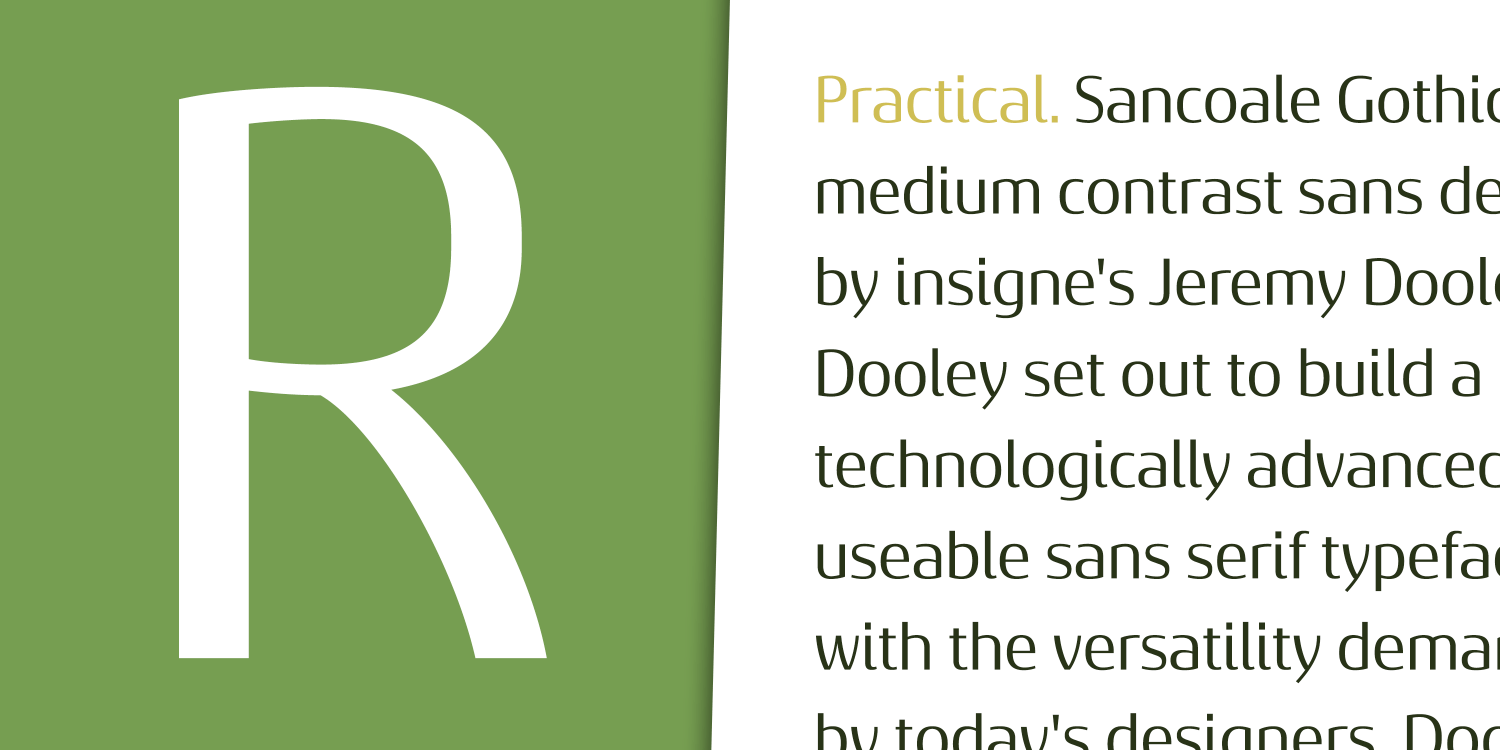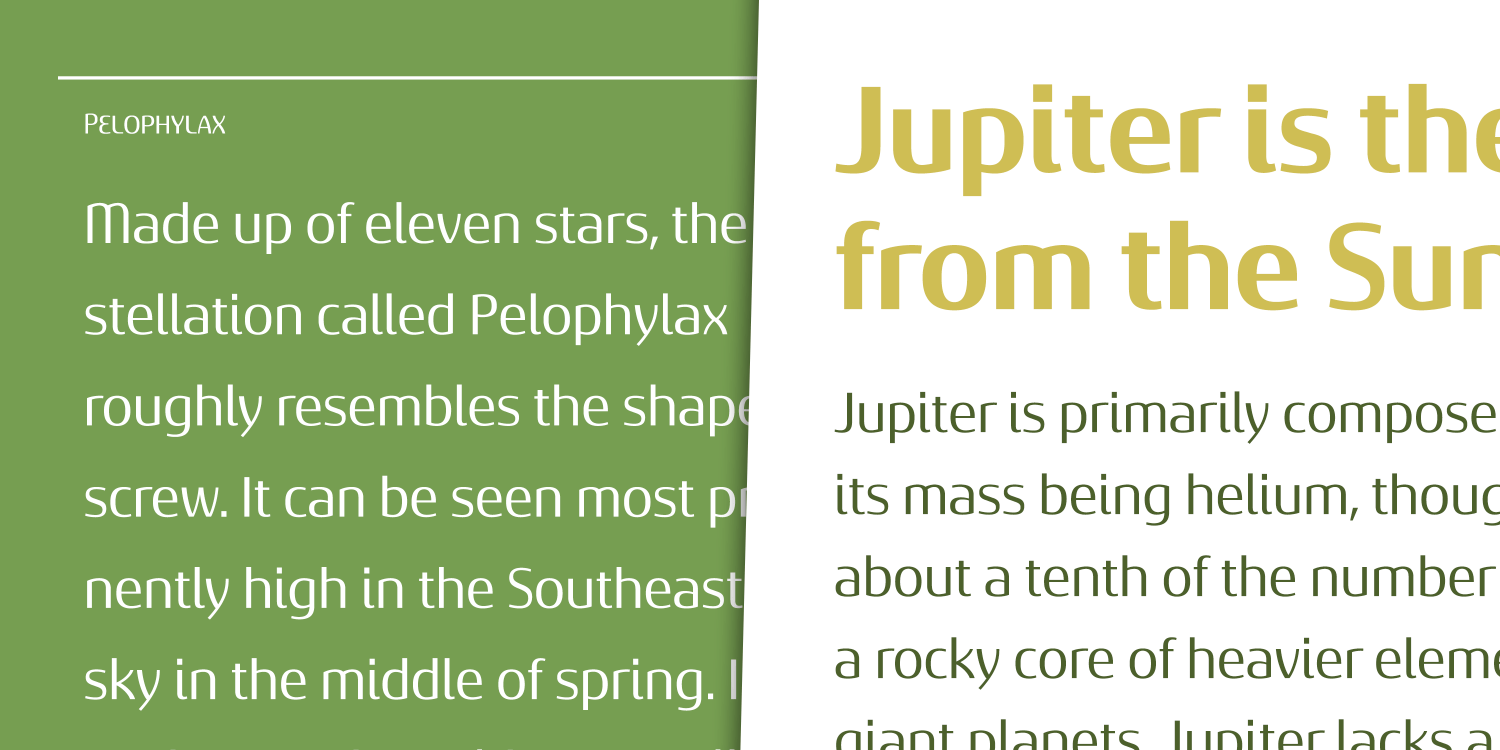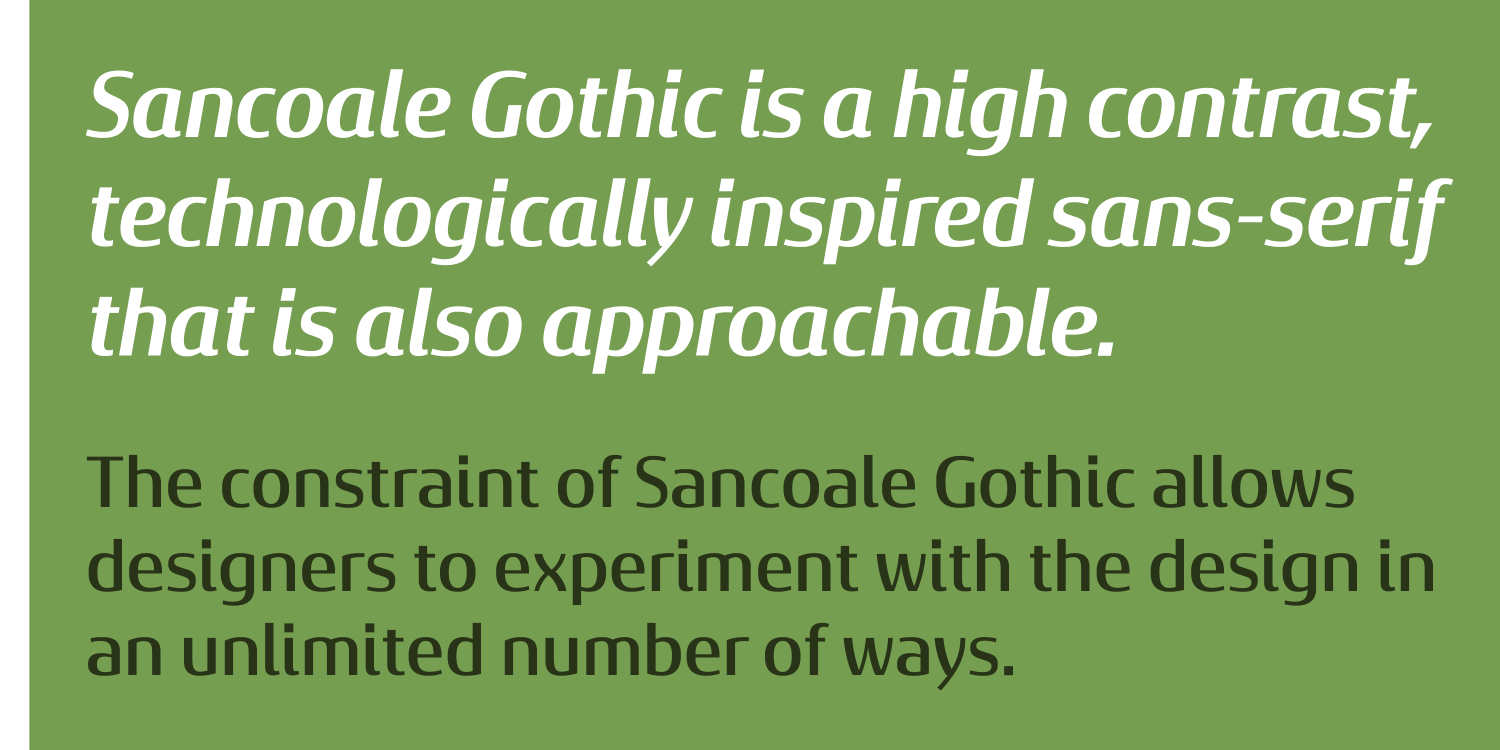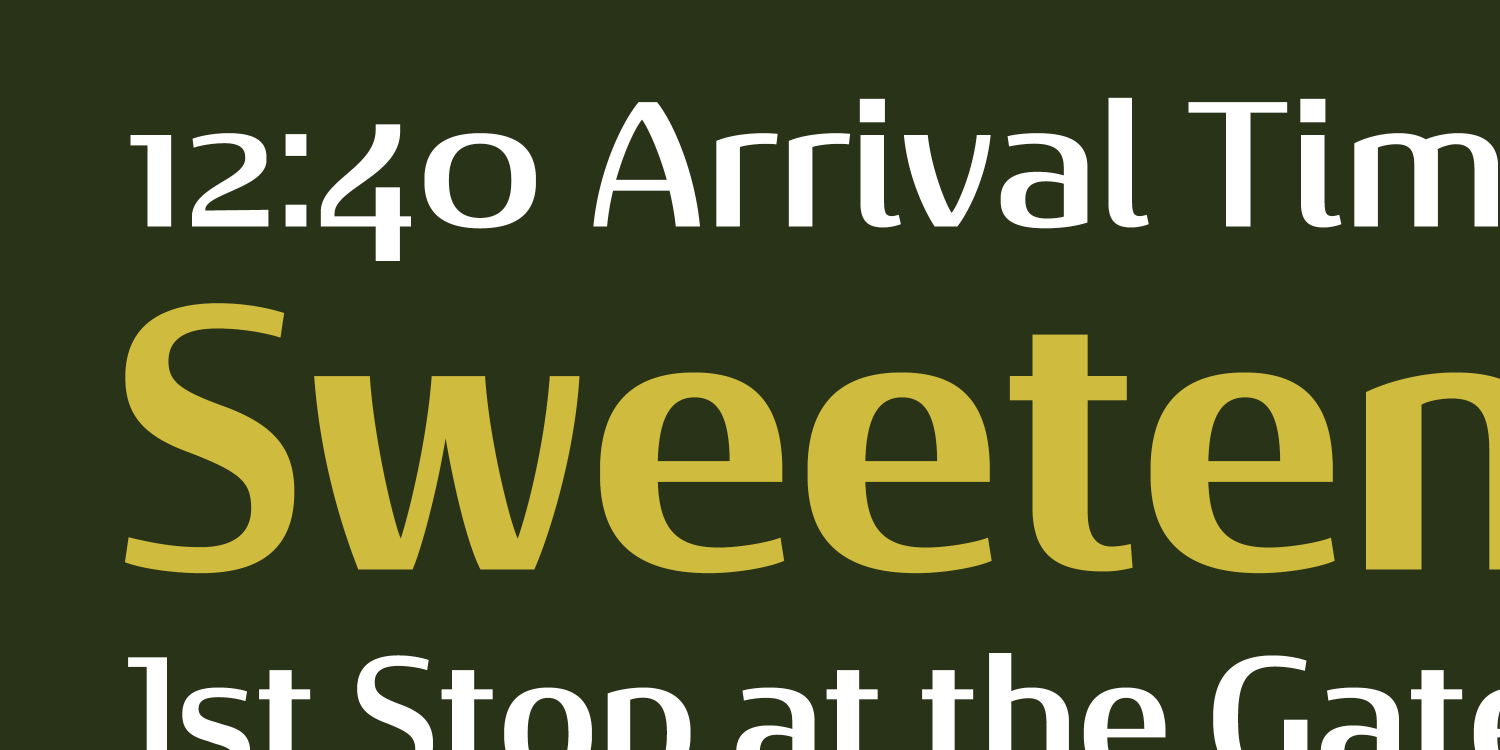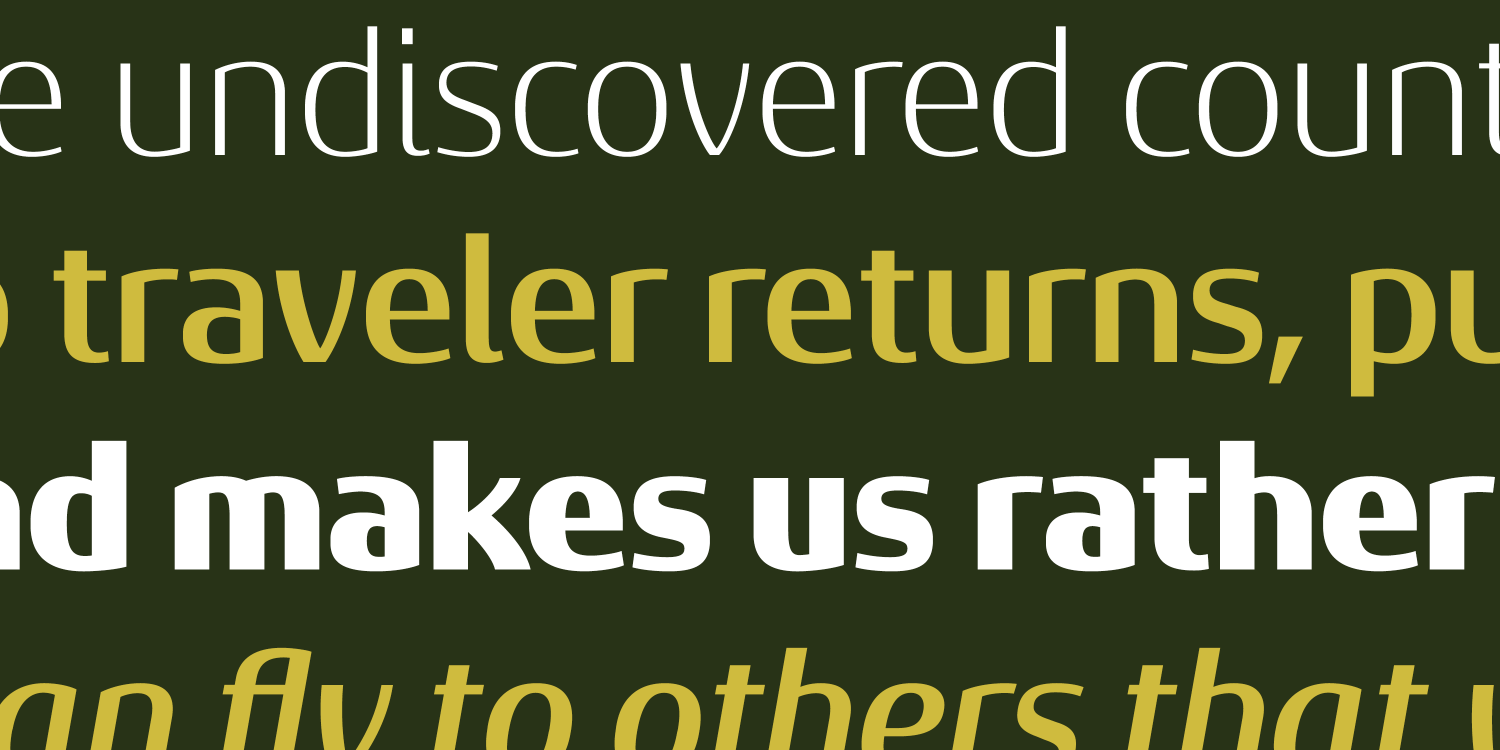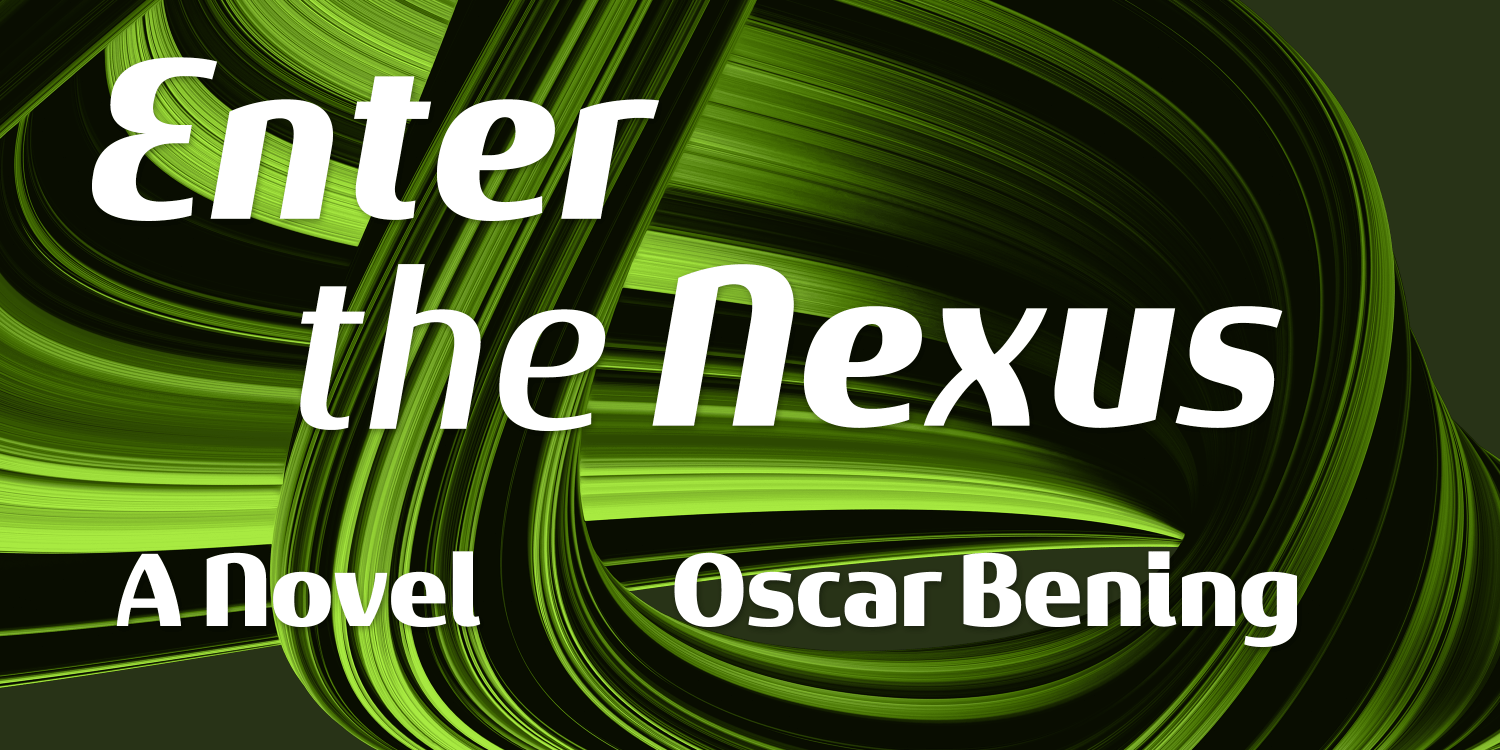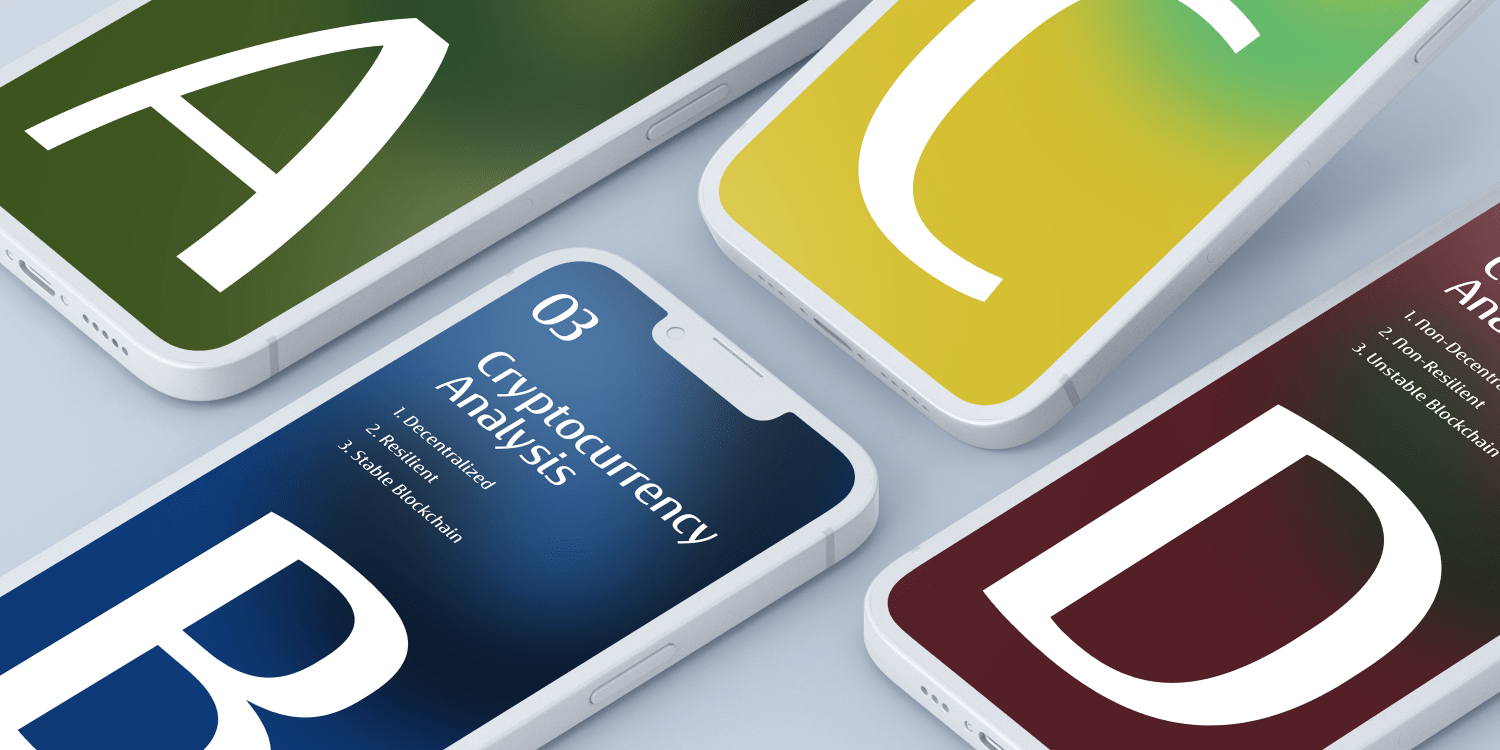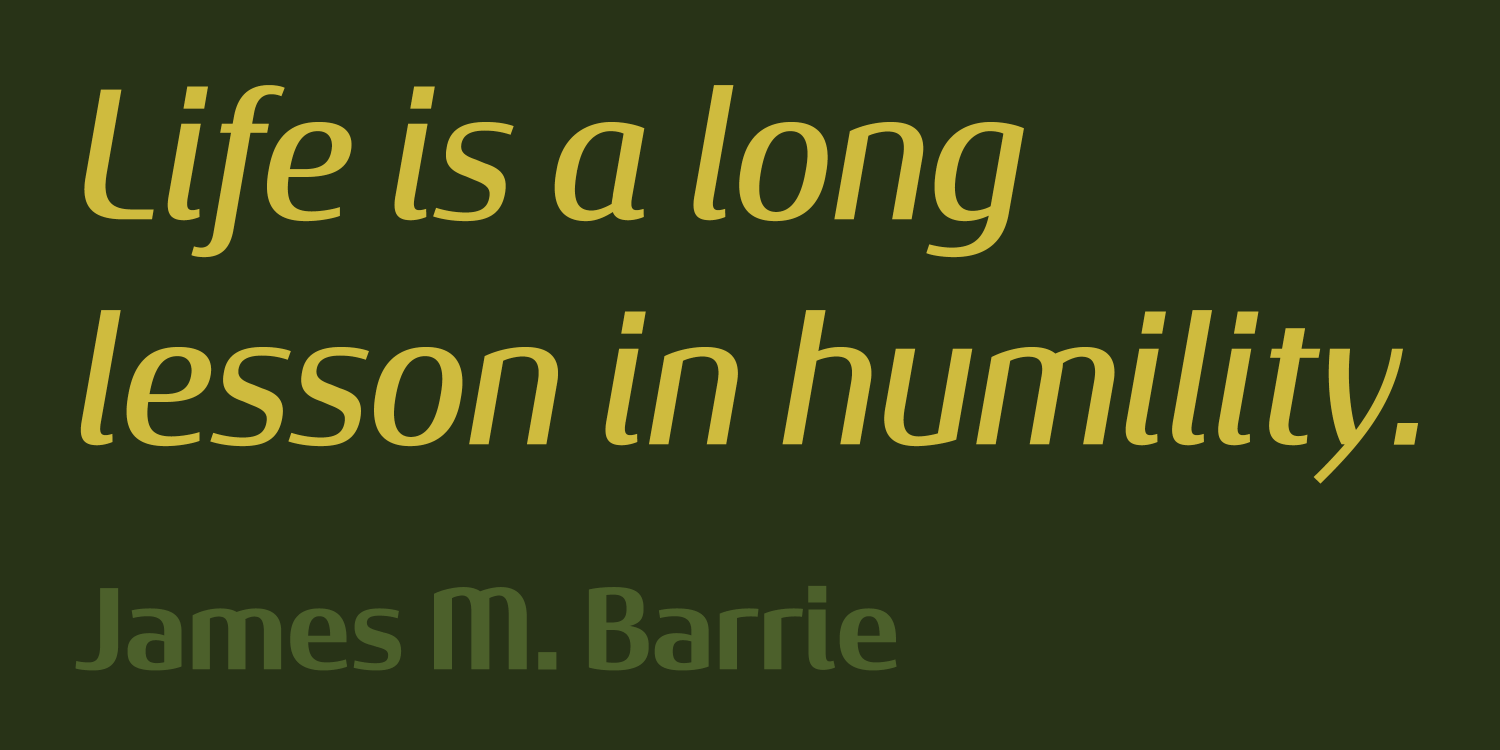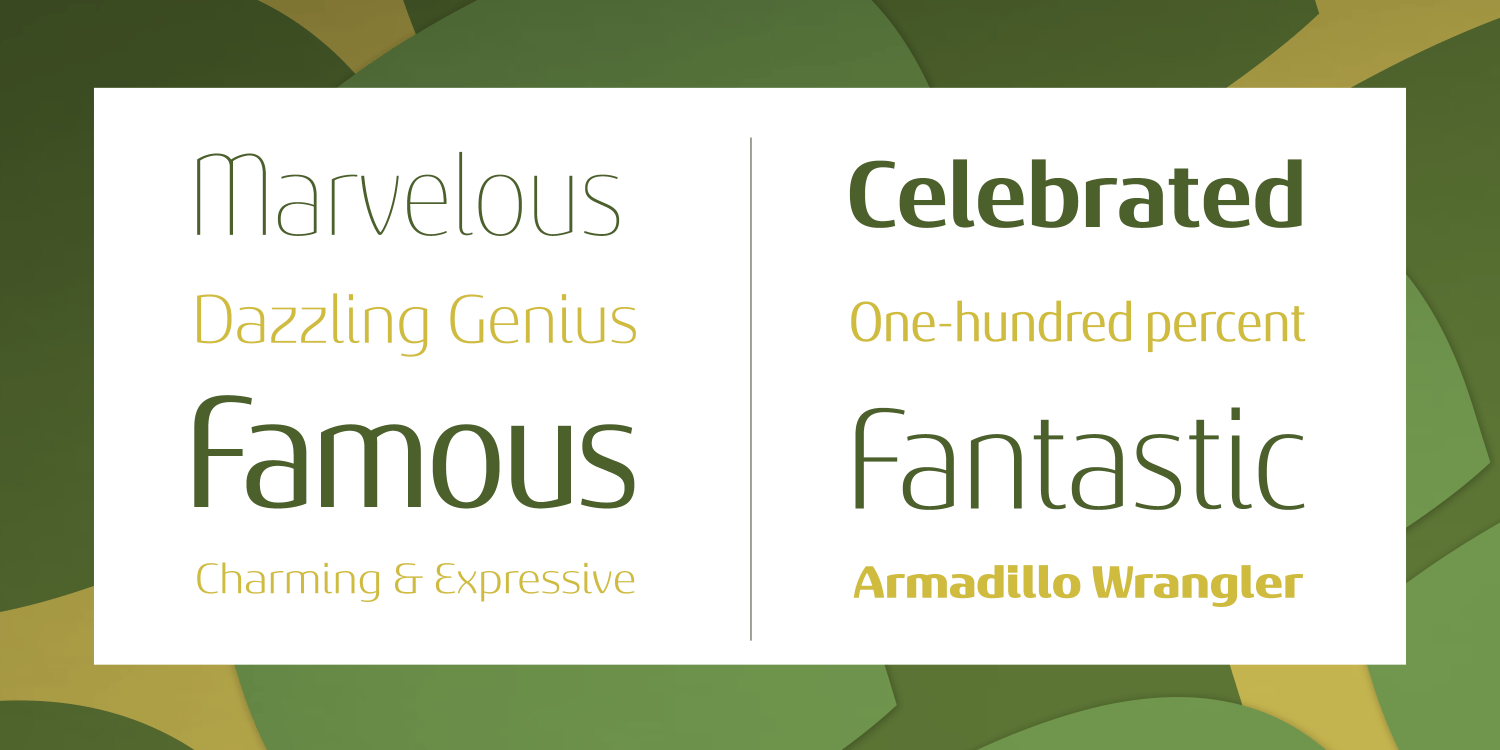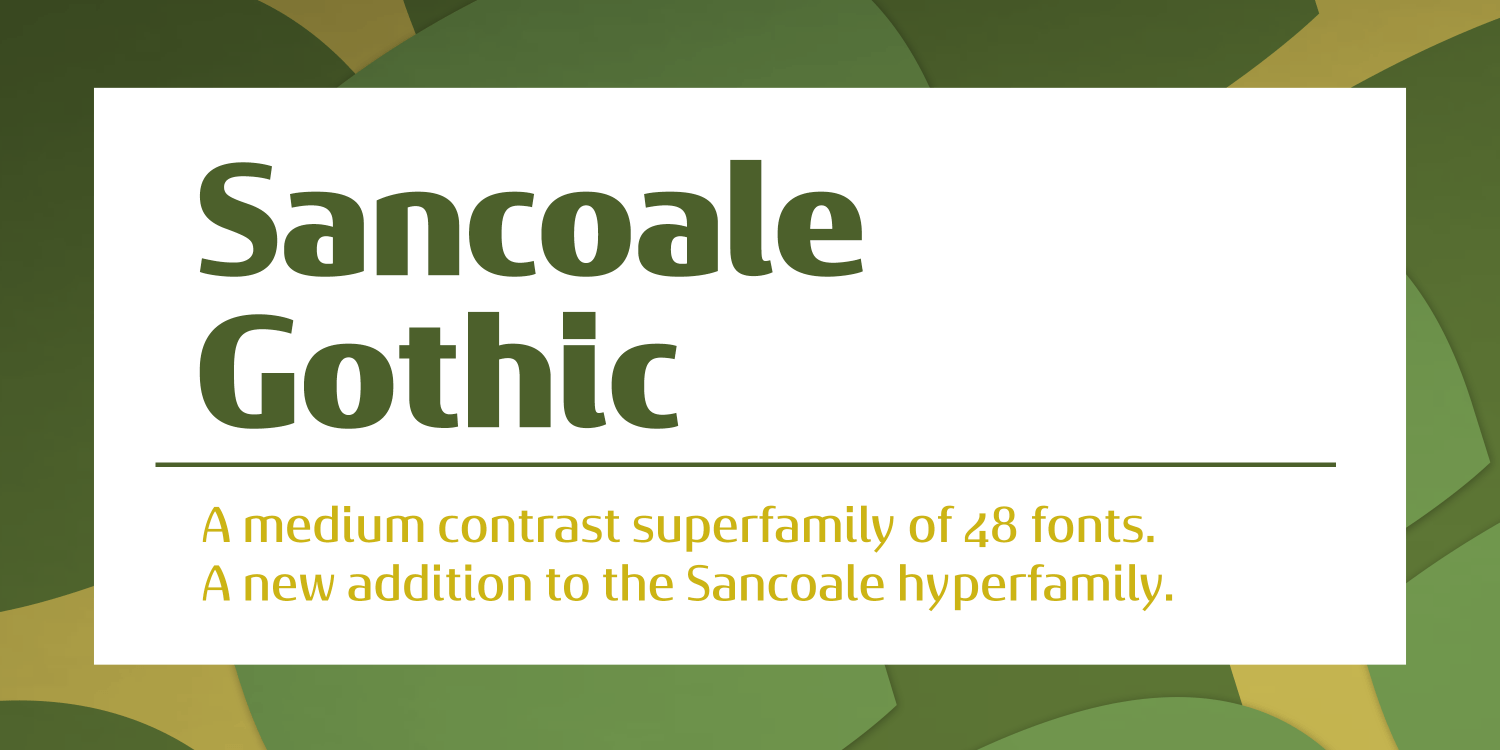
Sancoale Gothic
In comparison to the powerful and commanding original, Sancoale Gothic is a more sober version of Sancoale. The medium contrast between thick and thin strokes makes for a typeface that stands out with striking clarity in longer texts, yet is very readable.…